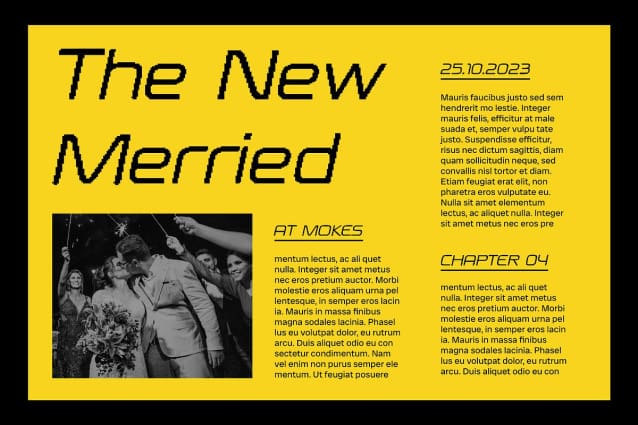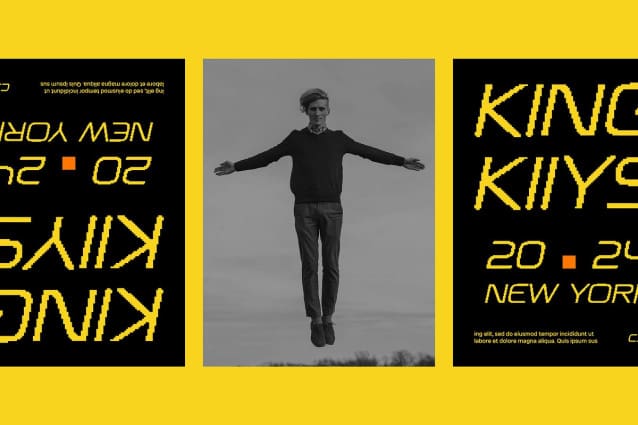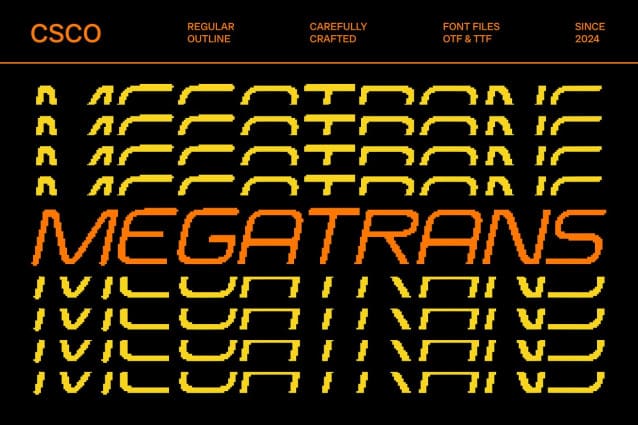
Megatrans Pixel Font
Megatrans Pixel Font is a sans serif font with a futuristic vibe and a pixelated style, perfect for display purposes. Its sleek design and pixelated elements create a unique and innovative look, ideal for headlines, banners, and other projects that require a bold statement.
With its futuristic design and pixelated details, Megatrans Pixel offers a fresh take on traditional sans serif fonts. The futuristic vibe and pixelated style create a captivating and dynamic look, perfect for designs that demand attention and convey a sense of innovation and forward-thinking.
Whether you’re designing a website or creating a poster, Megatrans Pixel is sure to make an impression. Its pixelated style and futuristic vibe make it perfect for displays that need a touch of modernity and innovation.
Despite its distinctive appearance, Megatrans Pixel is versatile and easy to use. The font works well in both large and small sizes, making it suitable for a variety of applications, from headlines to body text. With its blend of futuristic style and pixelated vibe, Megatrans Pixel adds a captivating and modern touch to any design.